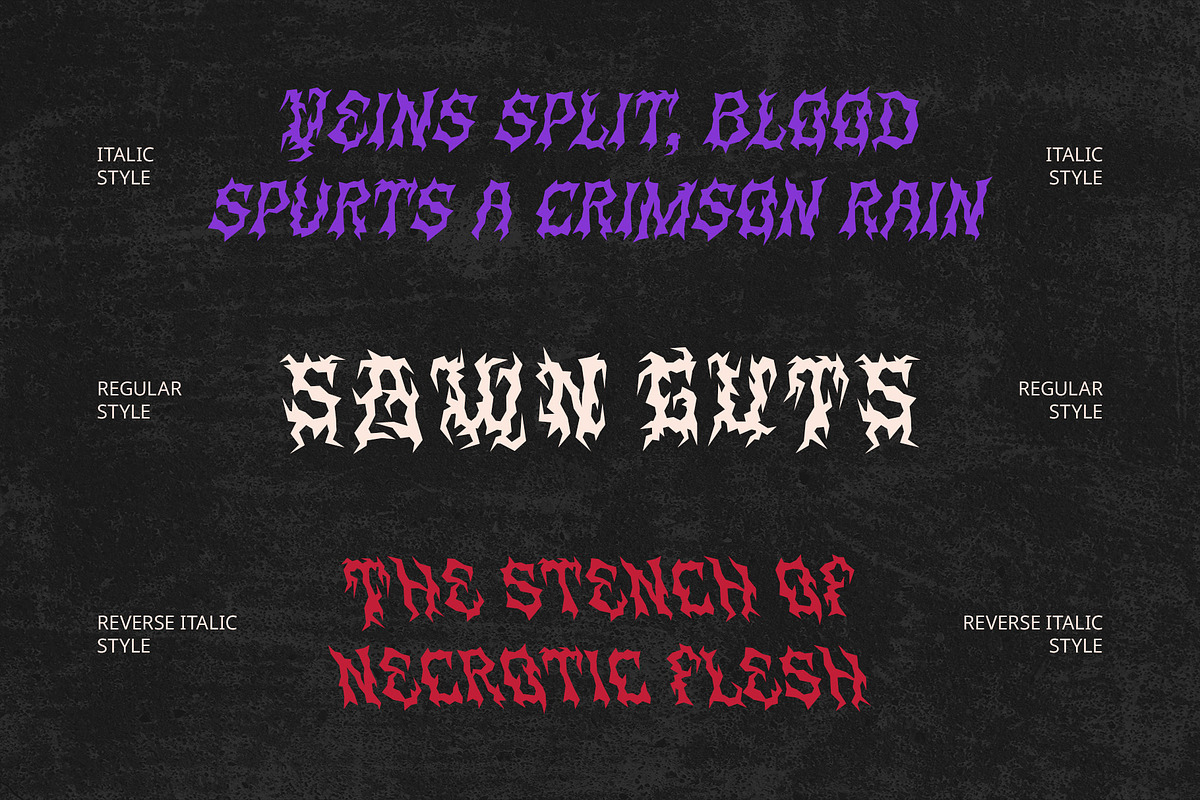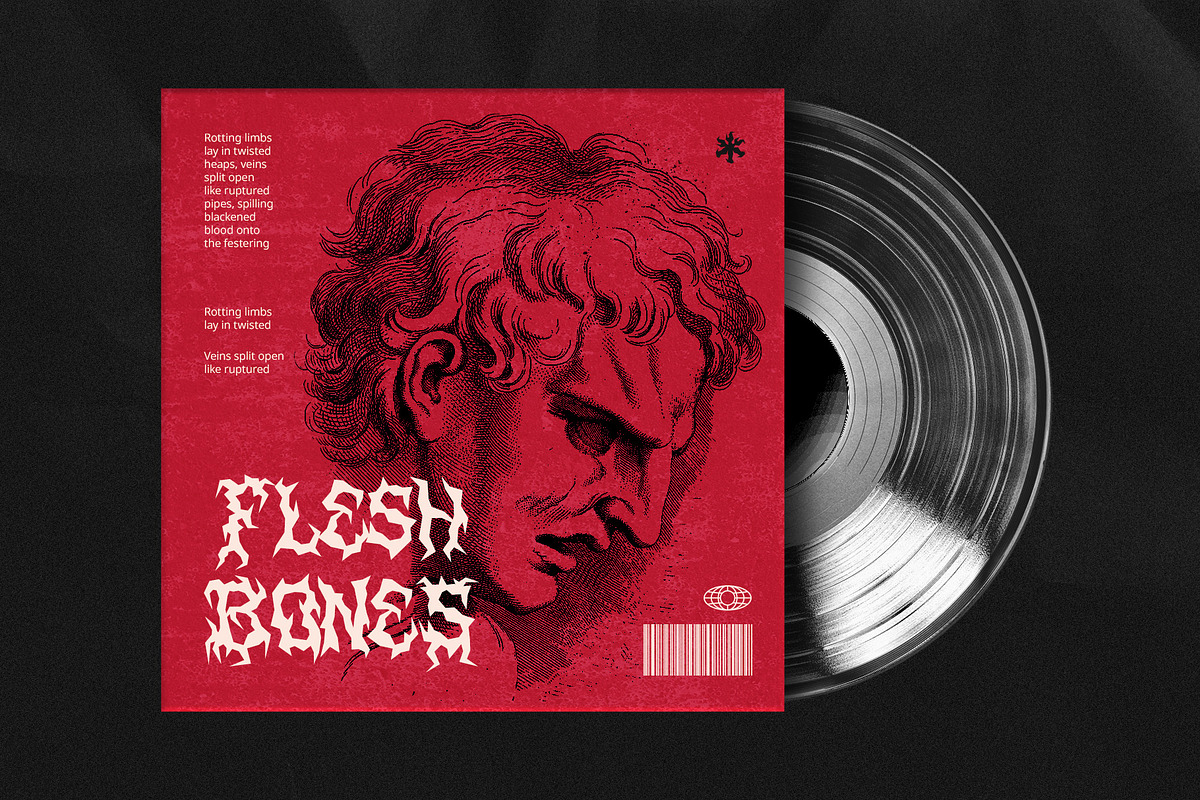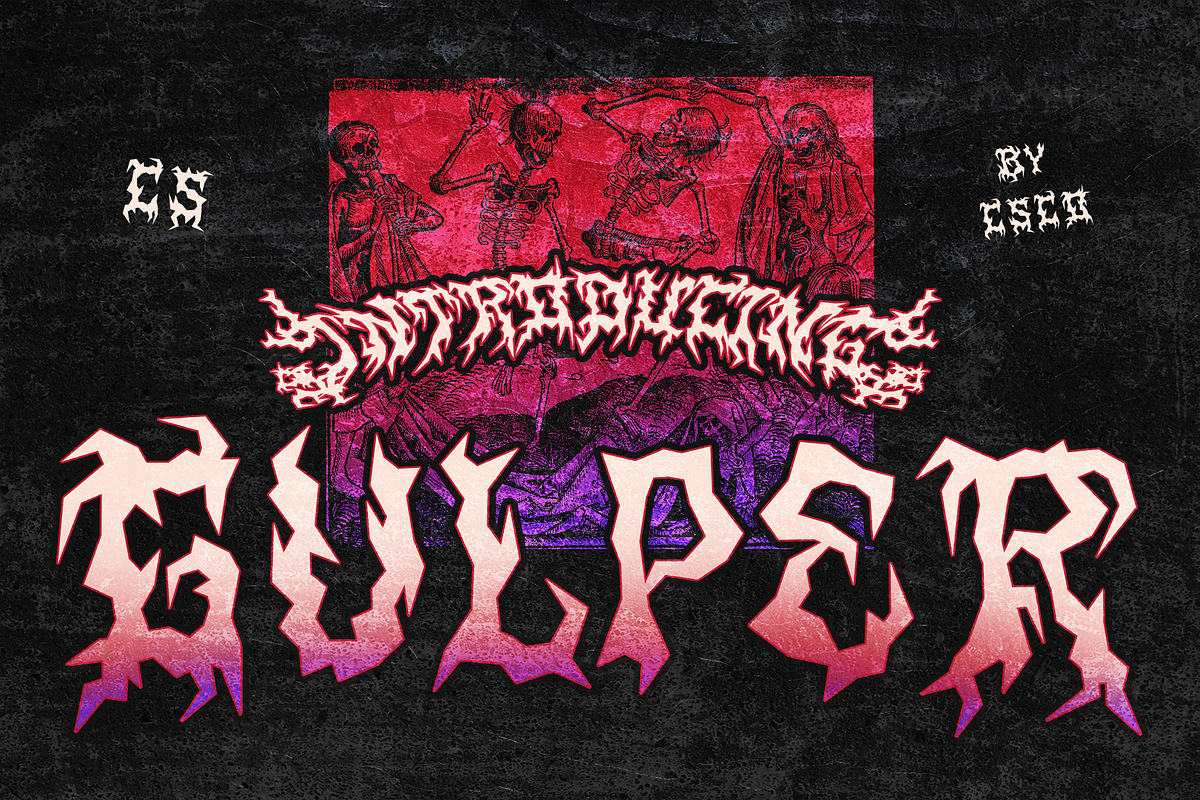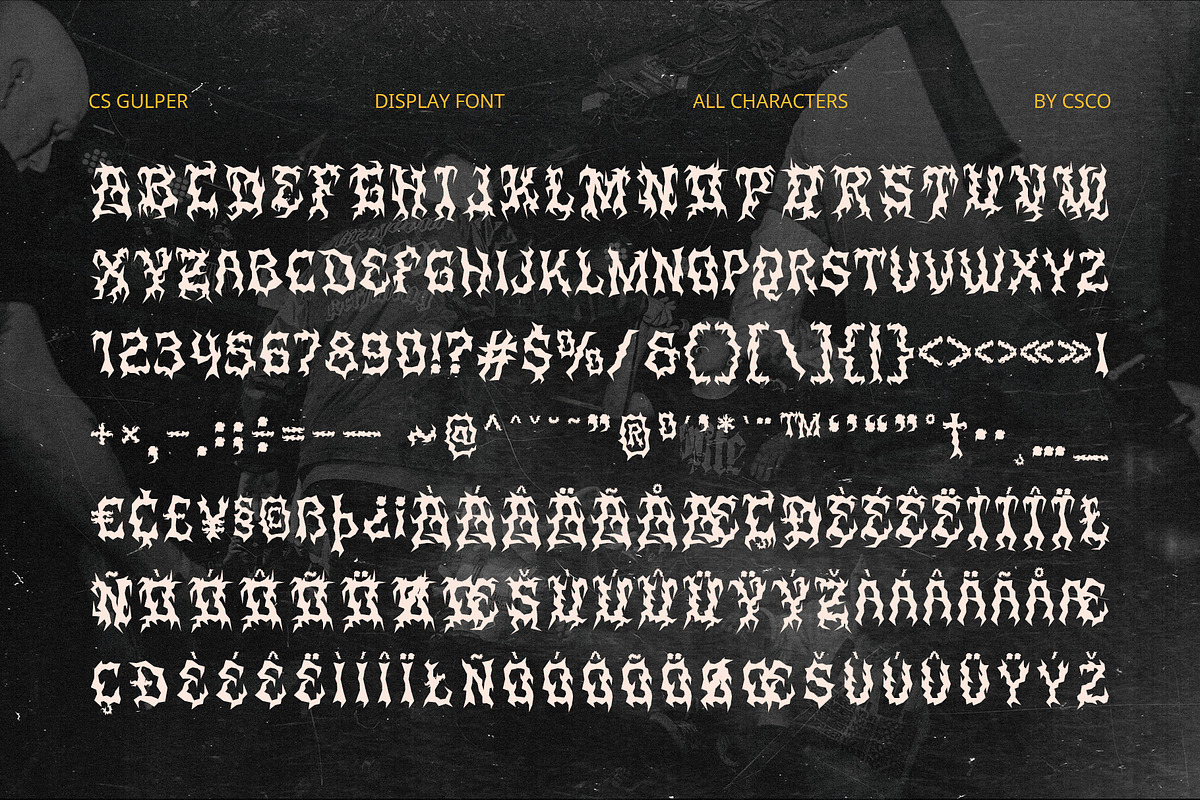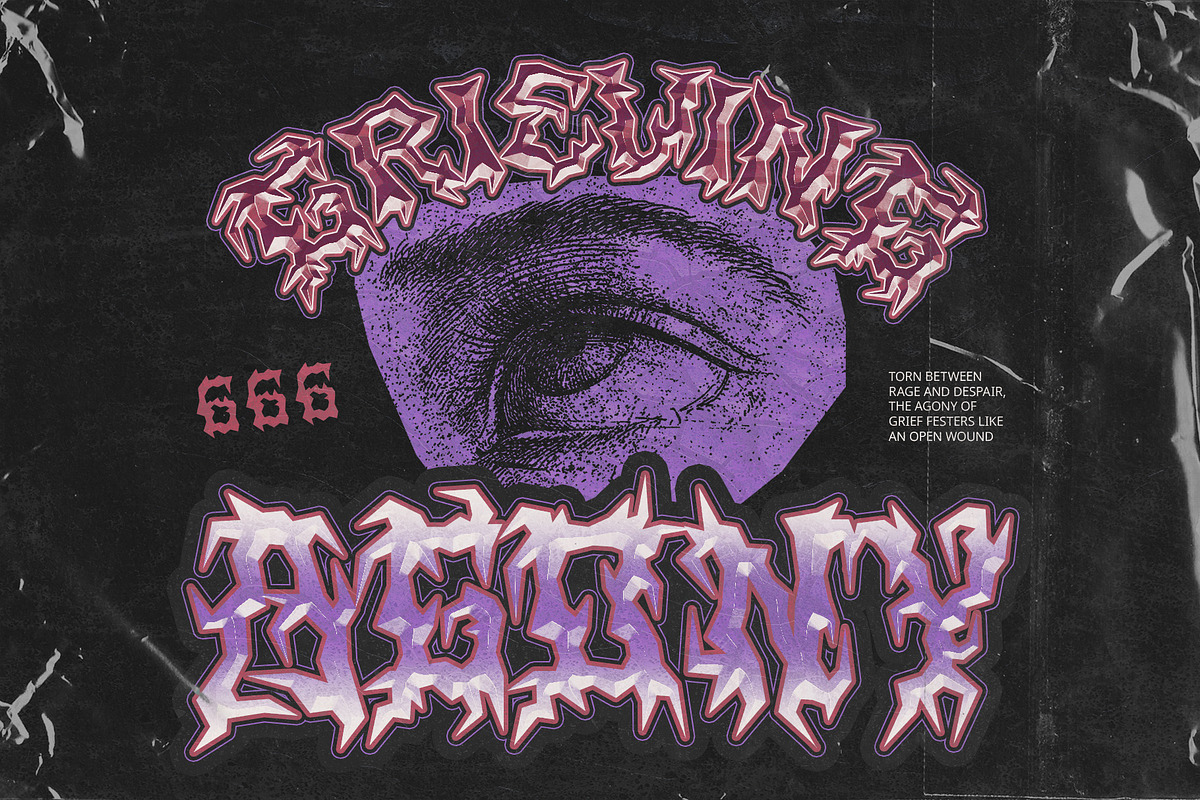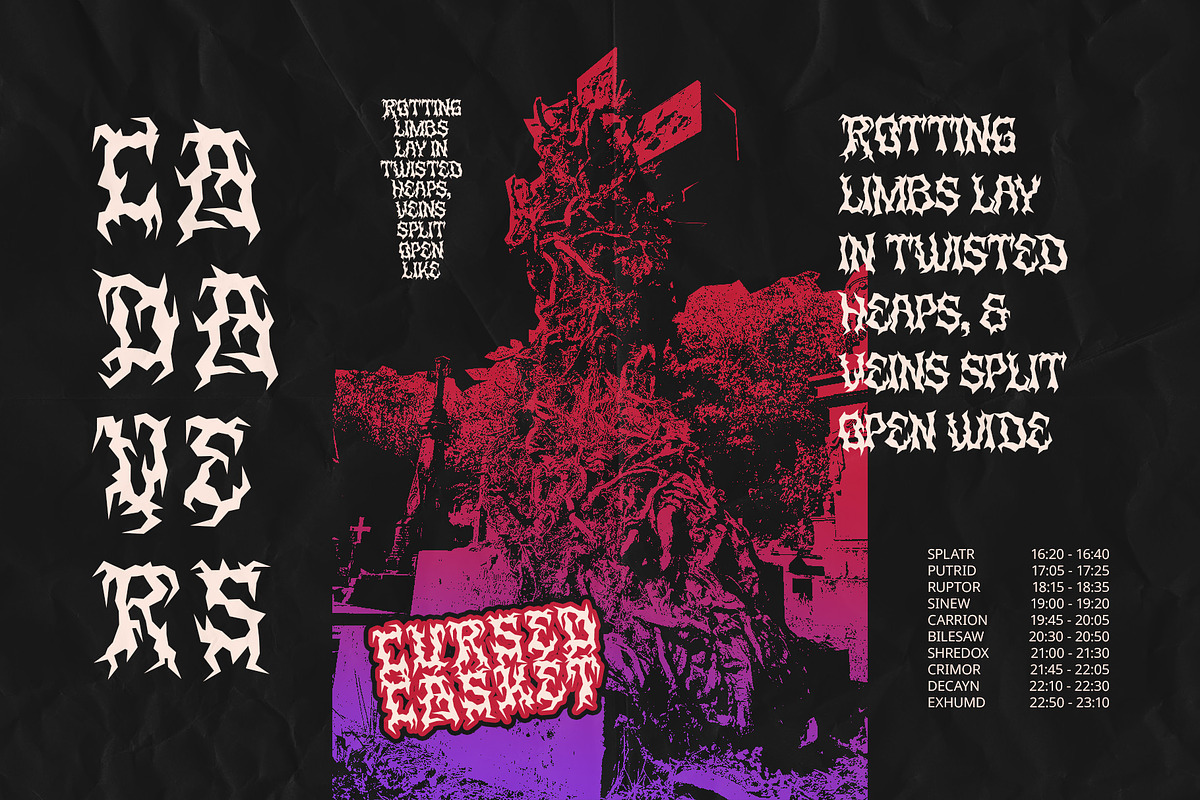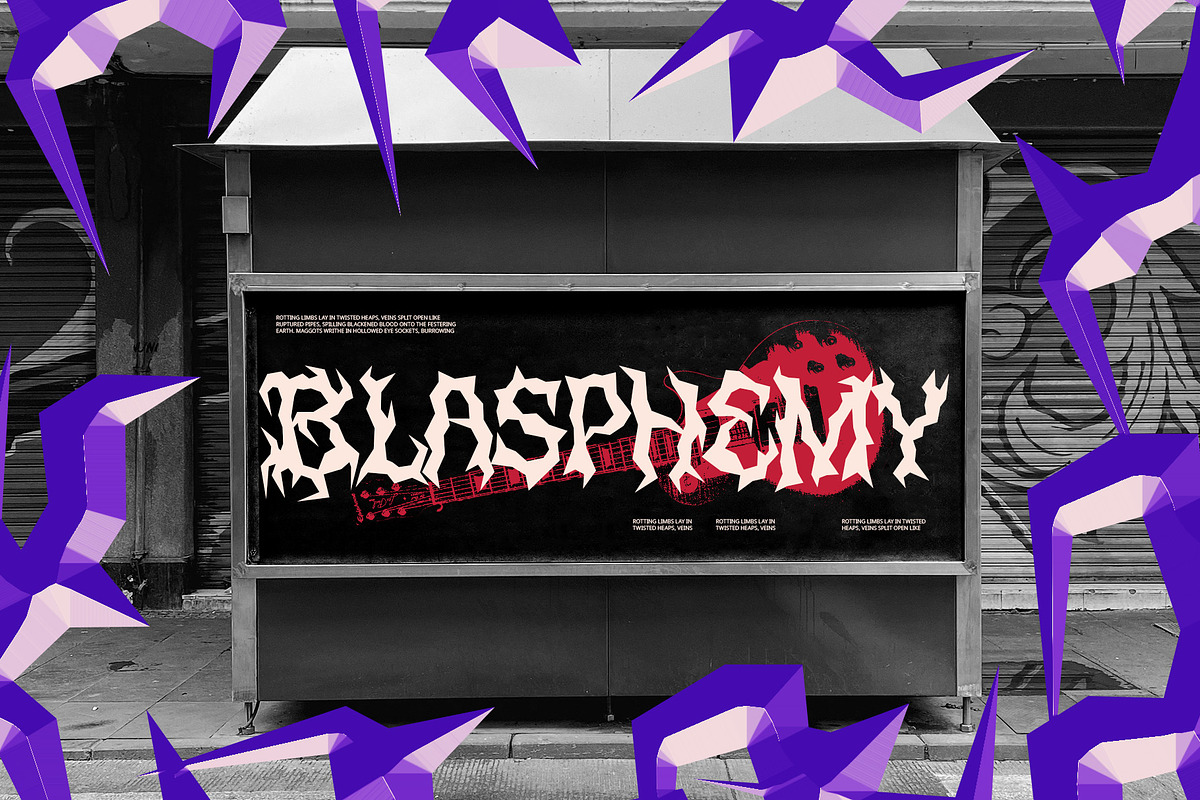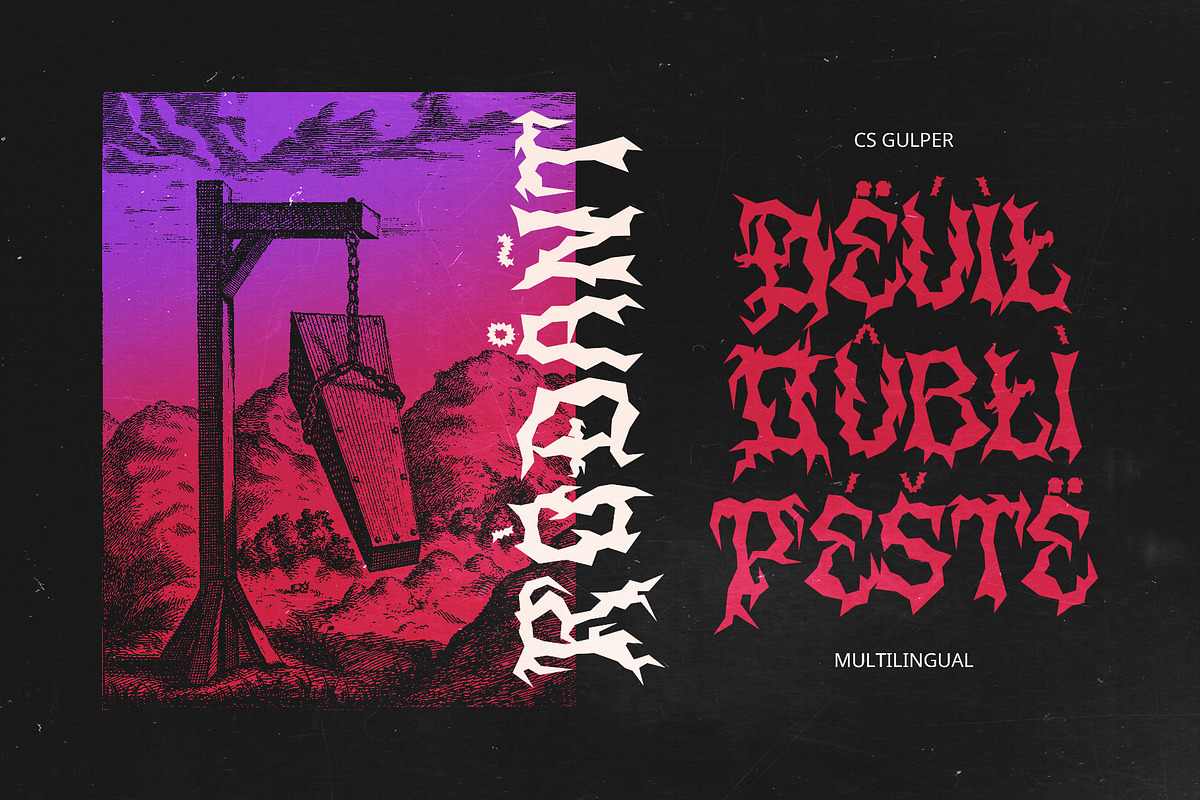
CS Gulper – Black Metal Font
CS Gulper – Black Metal Font: Raw, Aggressive, and Uncompromising
Bold Black Metal Display Font CS Gulper is a black metal display font featuring bold, heavy letterforms inspired by the raw energy and intensity of black metal music and culture. Its jagged edges, sharp details, and rough textures create a striking visual impact, embodying an aggressive and rebellious attitude that stands out in any design.
Dark and Intense Aesthetic With its sinister and chaotic design, CS Gulper captures the essence of darkness and power. The heavy strokes and distressed elements give it a raw and unrefined look, perfect for projects that demand a sense of mystery, rebellion, and extreme intensity. Whether used for album covers, band logos, or extreme sports branding, this font radiates a bold and unapologetic presence.
Perfect for Heavy Music and Edgy Designs Designed for the world of metal, rock, and underground culture, CS Gulper is ideal for heavy music branding, extreme event posters, horror-themed designs, and alternative fashion labels. Its aggressive letterforms make a statement, ensuring that any project it’s featured in will command attention and deliver a powerful impact.
A Rebellious and Unconventional Typeface CS Gulper defies traditional typography norms with its jagged and chaotic structure, reflecting the nonconformist spirit of black metal. This font is perfect for brands and designers looking to break boundaries and create visuals that challenge the status quo.
- CS Gulper Regular
- CS Gulper Italic
- CS Gulper Reverse Italic